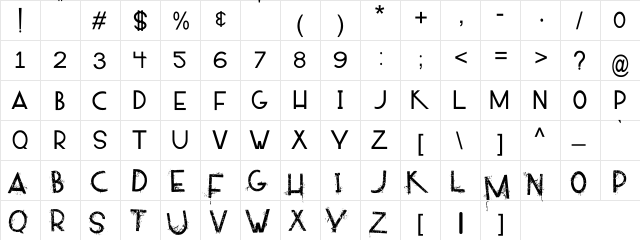
ALPACA54 Regular
Design Context for ALPACA54 Typeface
ALPACA54 takes a measured approach to typography — its balanced proportions and neutral character make it a reliable workhorse for both digital and print work.